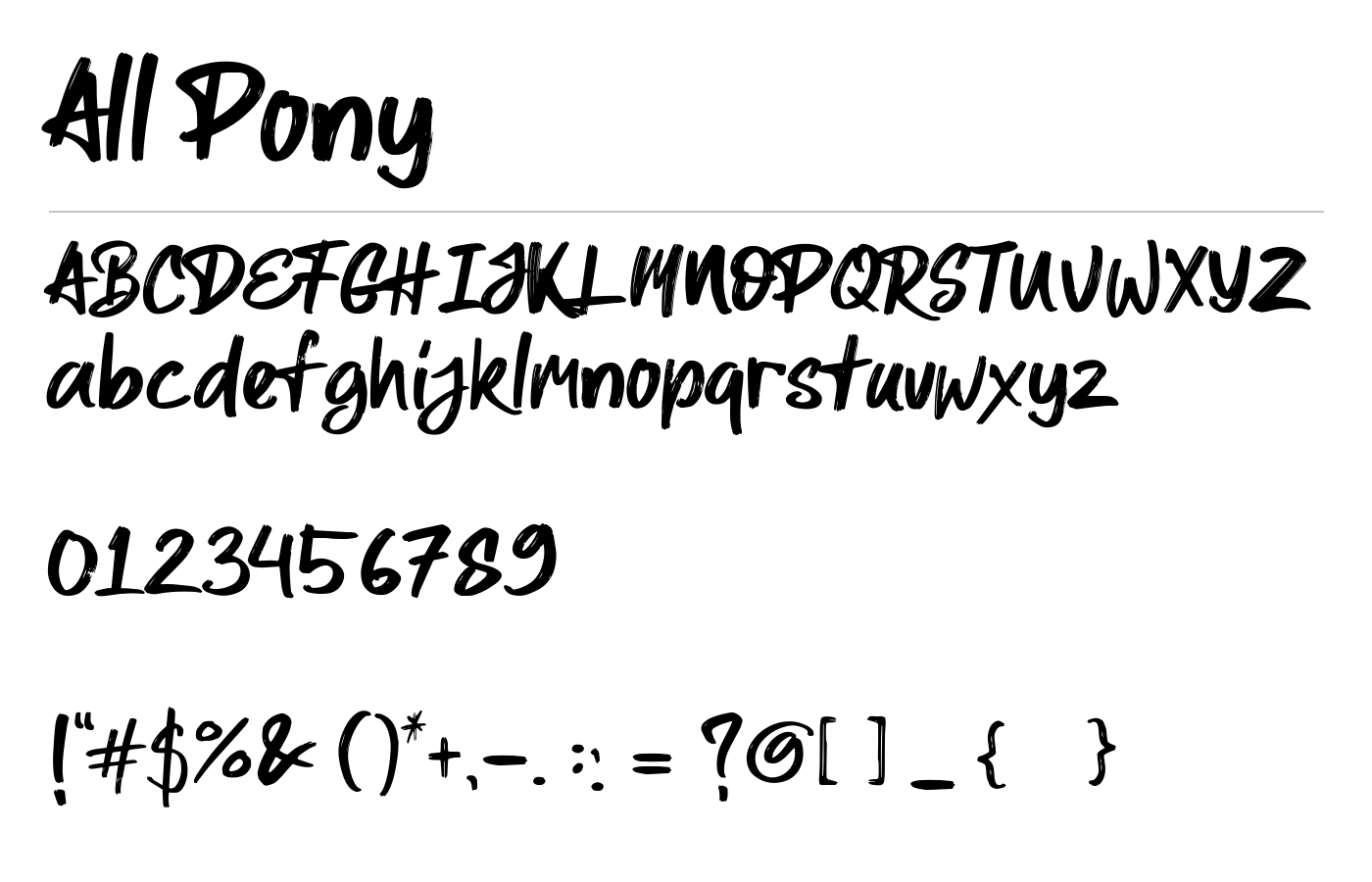
All Pony is an energetic, casual brush script font with a lively hand-drawn feel, featuring medium weight and a slightly condensed width. Its irregular, textured strokes and playful letterforms make it perfect for creative projects, branding, and headlines that want to express a youthful, informal, and artistic vibe. This font shines in designs that seek to convey personality and a personal touch, such as posters, logos, and lifestyle or entertainment-related content.
All Pony Font